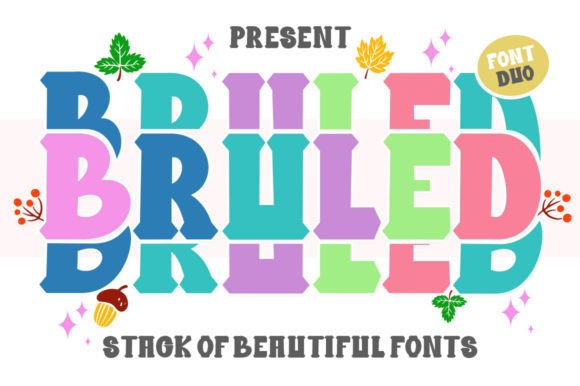
The Groovy Bruled Stacked Duo Font: A Designer’s New Best Friend
I’ll never forget the time I was working on a project, trying to create a trendy text design that would make my client’s eyes light up. I had a vision of a stacked, groovy font that would add a pop of personality to the design, but I just couldn’t find the right one. That was until I stumbled upon the Bruled Stacked Duo font. With its unique stacked effect and 2 glyphs to help create amazing text designs, I knew I had found the perfect fit. In this article, I’ll share my experience with this fantastic font, and show you how to make the most of its features.
So, what do I love about the Bruled Stacked Duo font? 🤔 Here are a few things that make it stand out:
- ✨ Easy to use: The font is PUA coded, which means you can access all the amazing glyphs and ligatures easily, without having to dig through complicated menus.
- ✅ Trendy designs: The stacked effect and glyphs allow you to create super trendy text designs that will make your work stand out.
- 🎉 Fun and playful: The font has a fun and playful vibe that’s perfect for designs that need a bit of personality.
- ⚠️ Limited use cases: While the font is amazing for certain types of designs, it may not be the best fit for more formal or traditional projects.
- 🤔 Requires some experimentation: To get the most out of the font, you’ll need to experiment with different glyphs and settings, which can take some time.
The Story Behind Bruled Stacked Duo
The Bruled Stacked Duo font was designed with one goal in mind: to create a fun, trendy font that would help designers create amazing text designs. The designer wanted to create a font that would be easy to use and would add a pop of personality to any design. With its unique stacked effect and glyphs, Bruled Stacked Duo is the perfect fit for designers who want to add a bit of groovy flair to their work.
| Font Name | Bruled Stacked Duo Font |
| Author | IM Studio |
| What is the Bruled Stacked Duo font? | The Bruled Stacked Duo font is a groovy font style in stacked effect, with 2 glyphs to help create trendy text designs. |
| Is the Bruled Stacked Duo font easy to use? | Yes, the font is PUA coded, which makes it easy to access all the amazing glyphs and ligatures. |